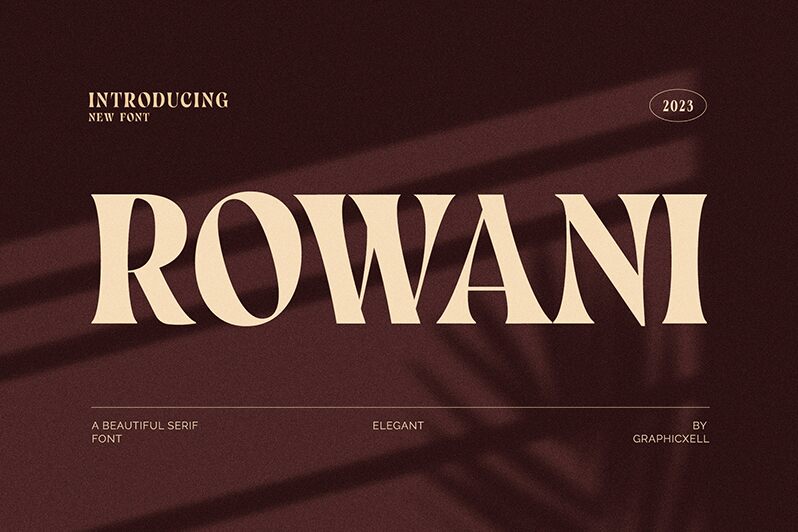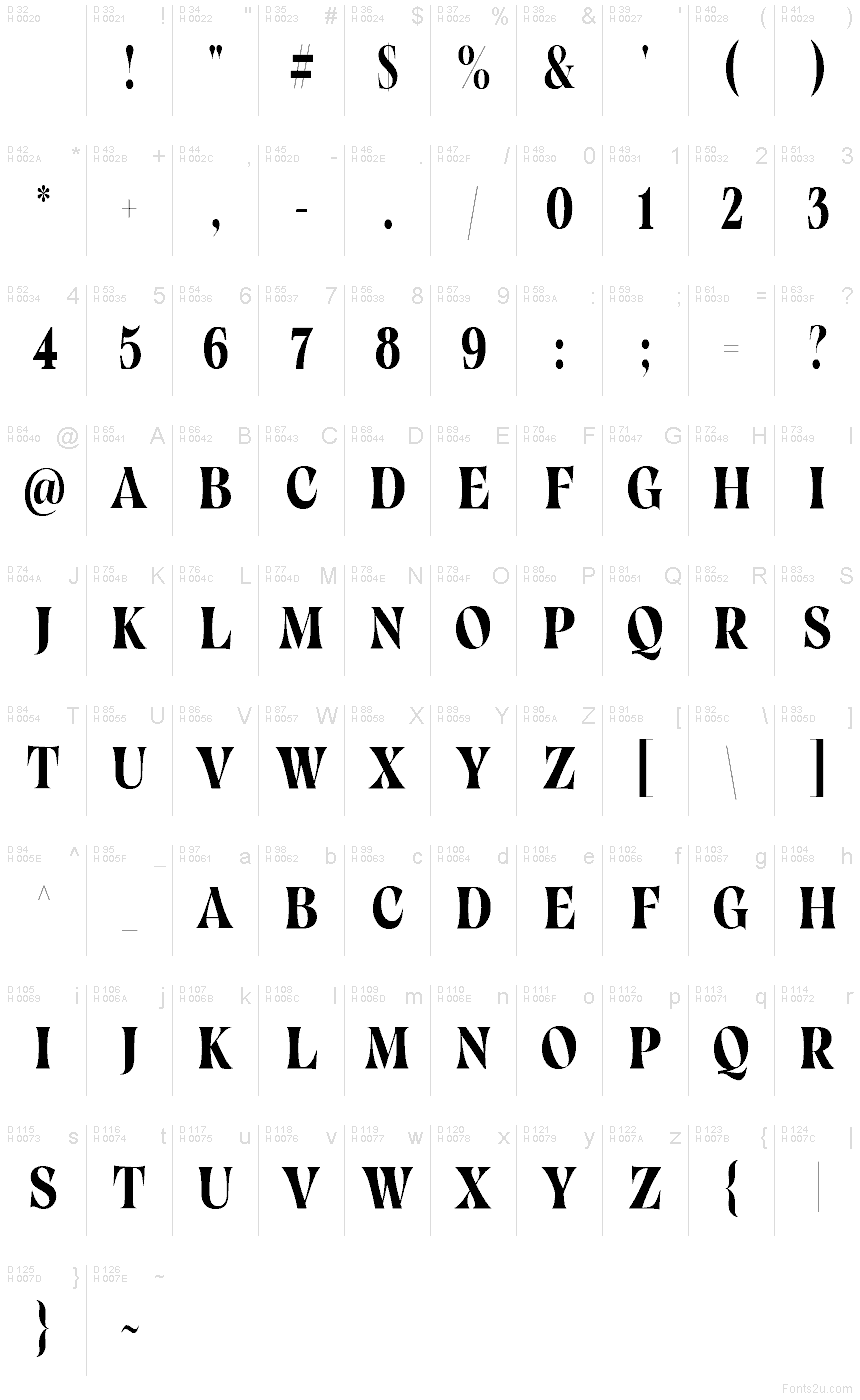
Rowani font by Graphicxell is a free serif typeface that carves light into shadow with sculpted wedges and velvet-black strokes. The letters feel chiseled and theatrical-tight apertures, razor serifs, and a confident vertical rhythm that reads like cut marble. It brings a couture attitude without fuss, giving headlines a cool, editorial snap.
Using Rowani, your brand marks, magazine covers, beauty packaging, posters, event invitations, and social promos take on a polished, fashion-forward presence. The sturdy forms hold up at large sizes while the narrow inner spaces keep lines compact and striking. Pair this free font with a quiet grotesque for body copy, and let Rowani breathe with generous tracking for extra elegance.